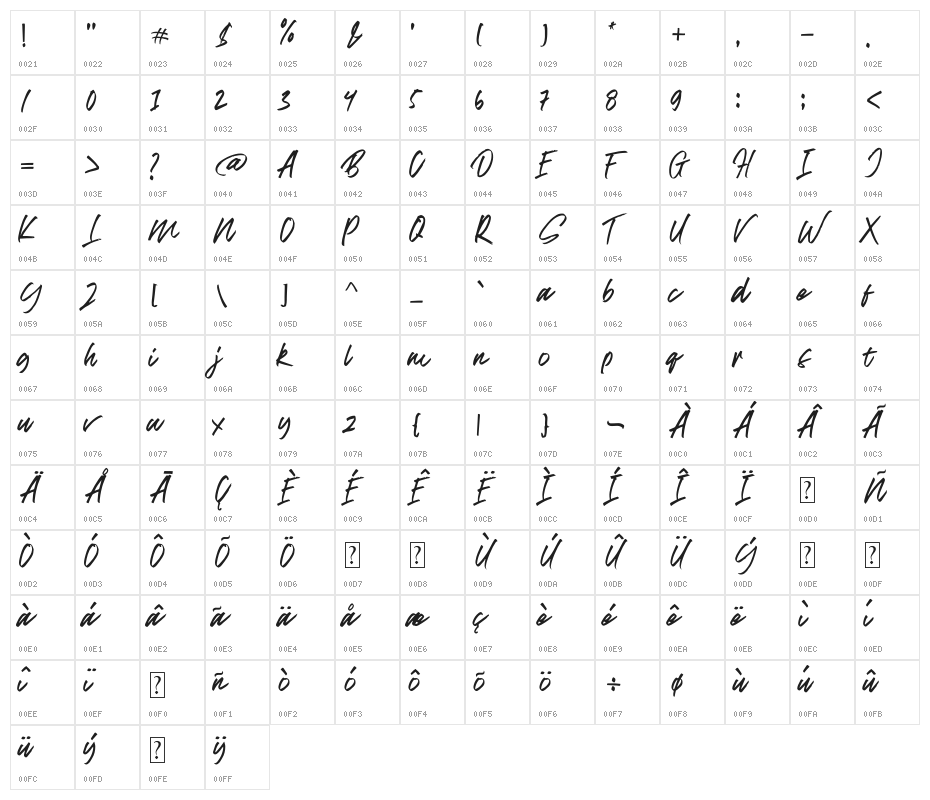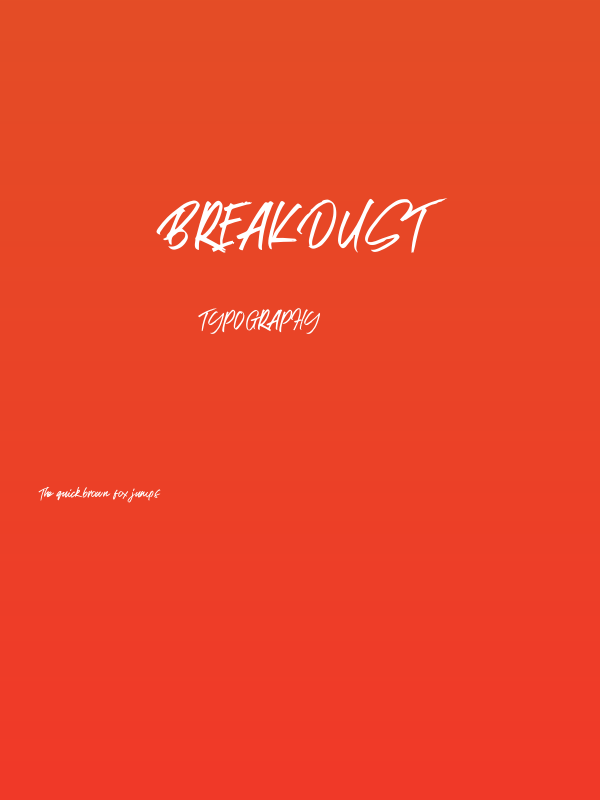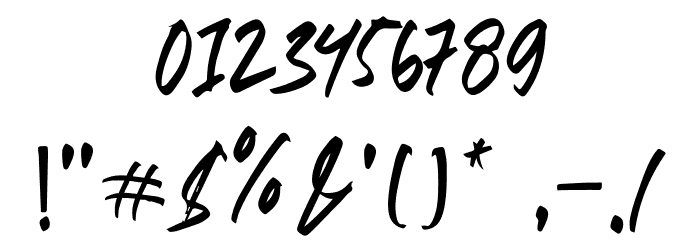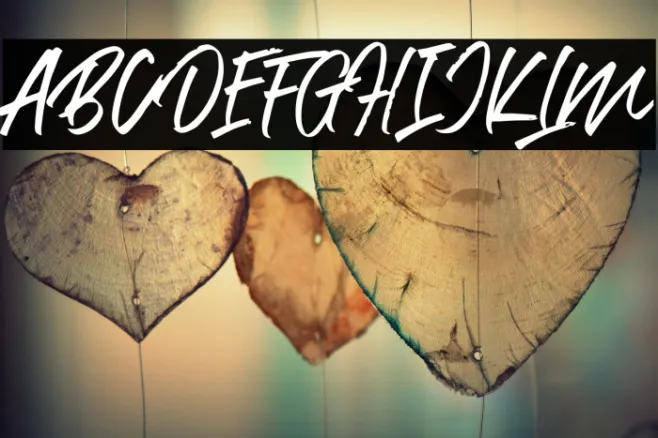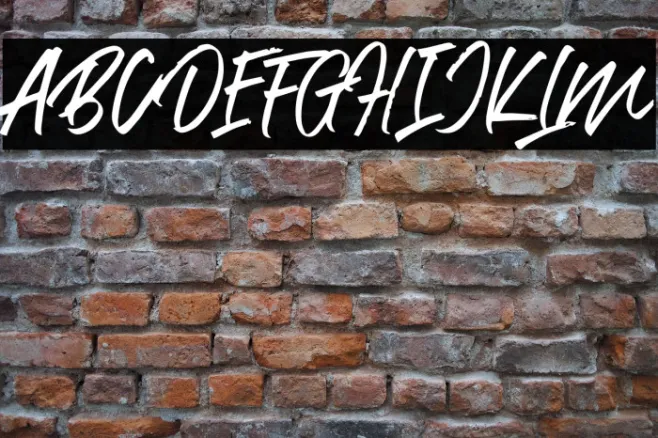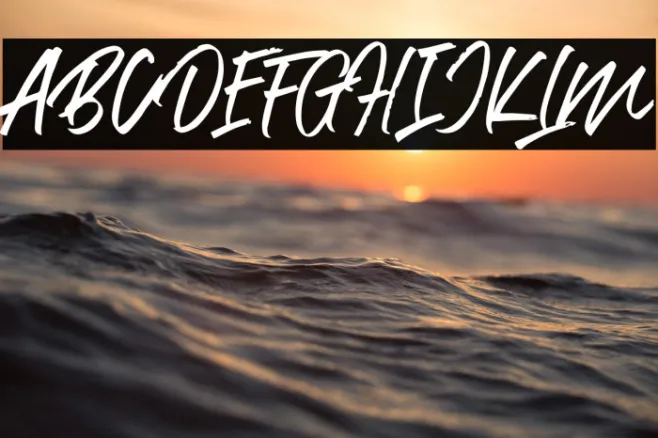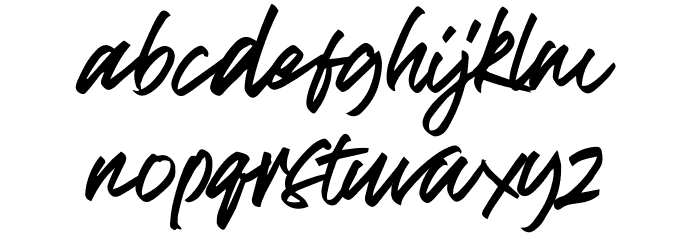
Break Dust Font
Break Dust Description
This font features a dynamic and energetic script style, characterized by its bold, sweeping strokes and a hand-drawn appearance. The letters are connected in a fluid manner, giving it a sense of motion and spontaneity. The uppercase letters are particularly striking, with exaggerated curves and angles that add a sense of drama. The lowercase letters maintain a consistent flow, complementing the uppercase with their slightly more restrained design. Numbers and special characters are crafted with the same lively style, ensuring a cohesive look across all text. This font's brush-like texture adds a raw, artistic feel, making it ideal for creative and expressive projects.
| Proposed Projects | Ideal for branding, posters, invitations, and any project requiring a personal, artistic touch. |